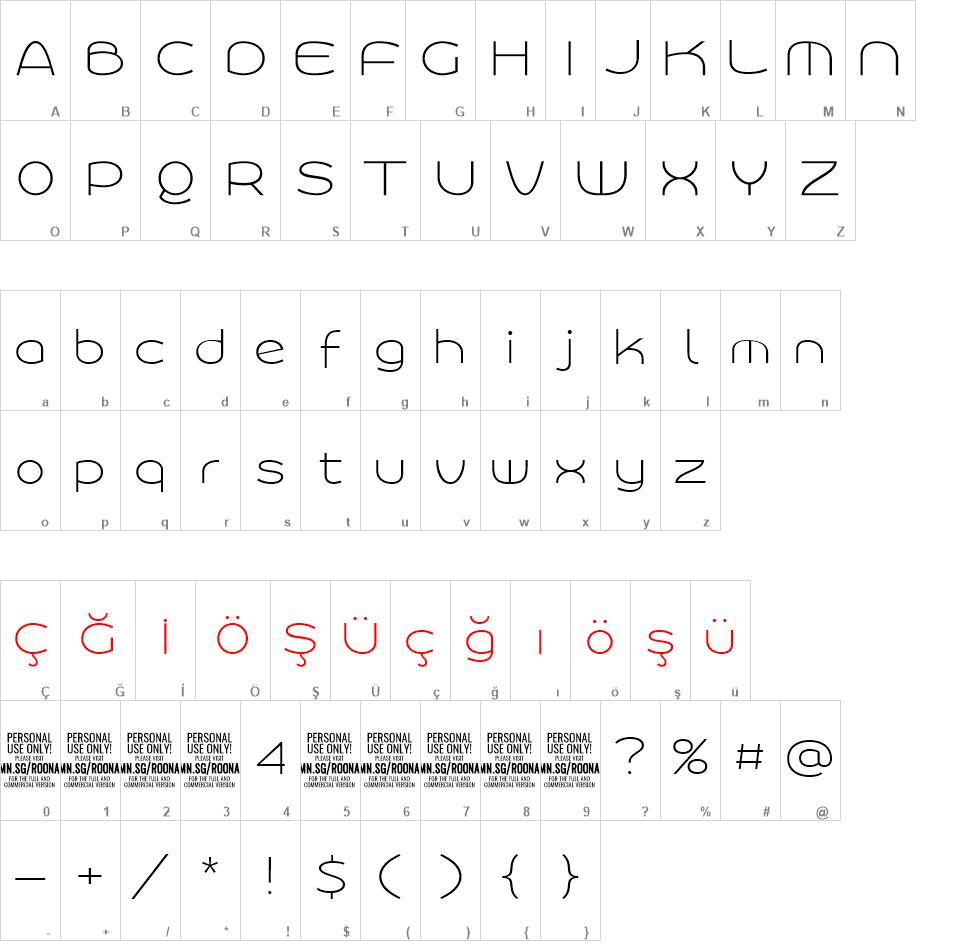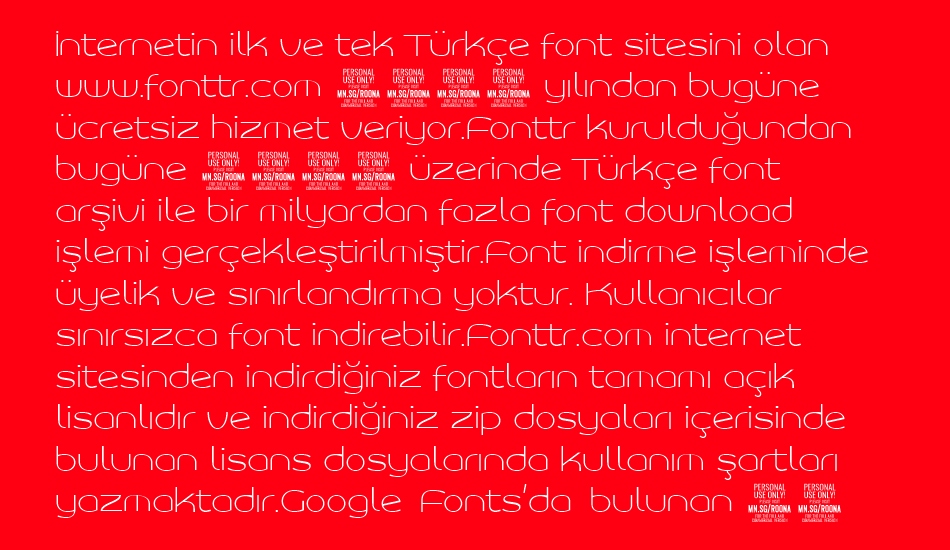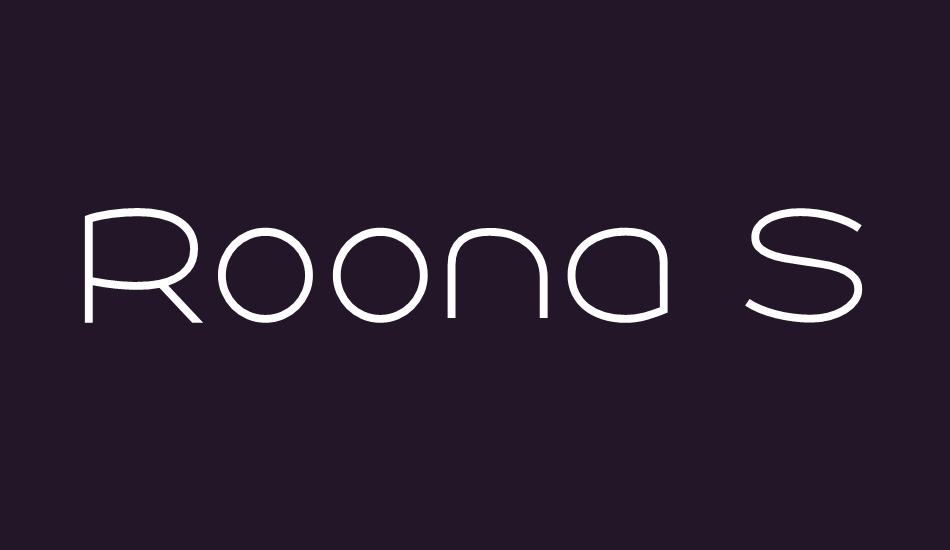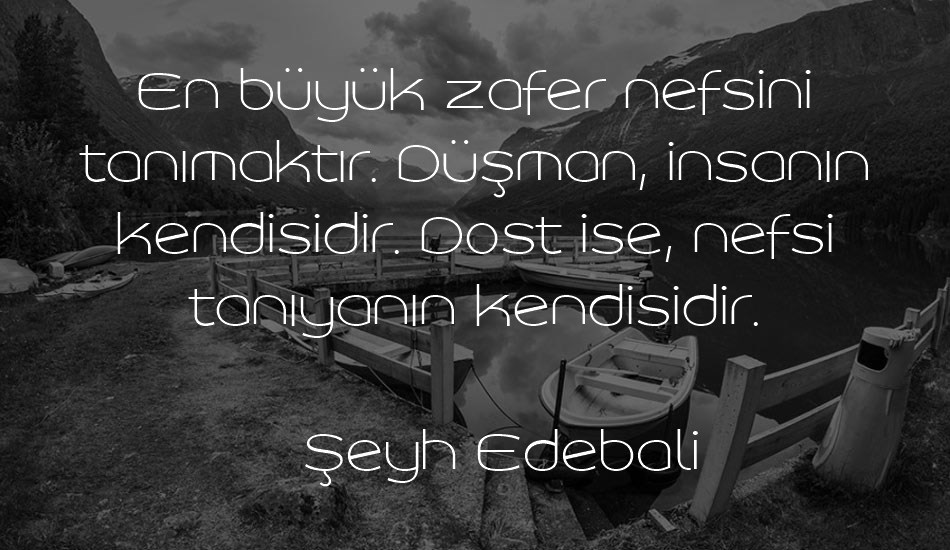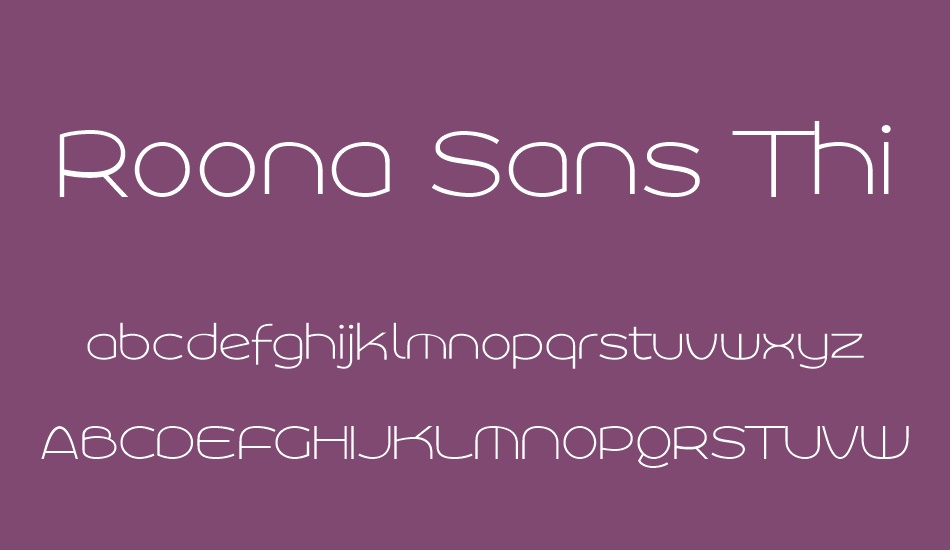
RoonaSans font
Yuvarlak font, yuvarlak ince font, yuvarlak kalın font 10 adet font family.
Roona Sans Thin PERSONAL font
Roona Sans is a modernist typeface with wide curves.
Drawn and created by M?ns Greb?ck in 2018, this space aged type comes in ten different styles;
Thin, Light, Medium, Bold and Black - and each weight as italic.